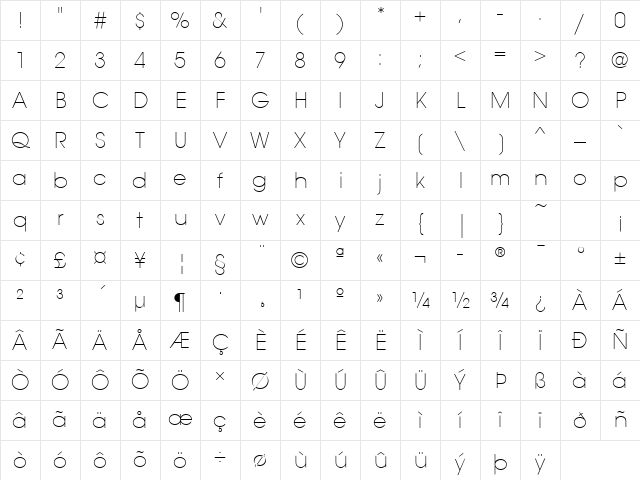
AvantGardEF ExtraLight
Style: ExtraLight
Foundry: (c) Elsner+Flake
AvantGardEF Family
AvantGardEF ExtraLight
Design Context for AvantGardEF
AvantGardEF is a composed and adaptable typeface that performs quietly and consistently across a wide range of design contexts. Its slender proportions lend an understated elegance to any composition.